Lavendora Font
Lavendora is a thin lettered and graceful script font. Fall for its ravishing style and use it to create gorgeous wedding invitations, beautiful stationary art, eye-catching social media posts, and much more! Lavendora is PUA encoded which means you can access all of the glyphs and swashes with ease!
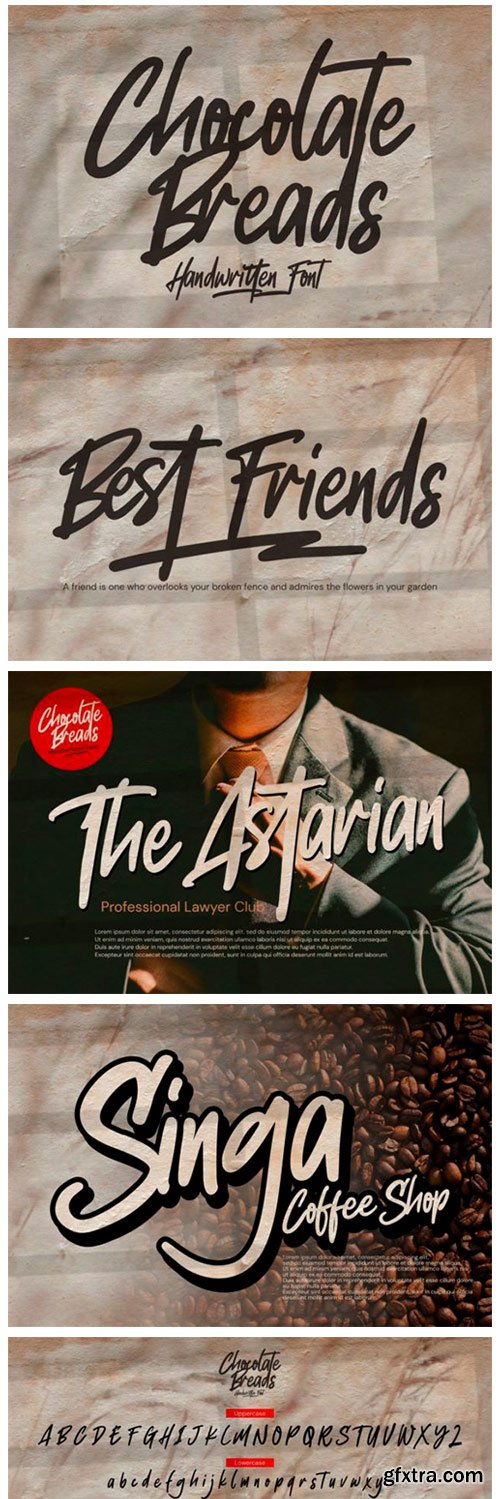
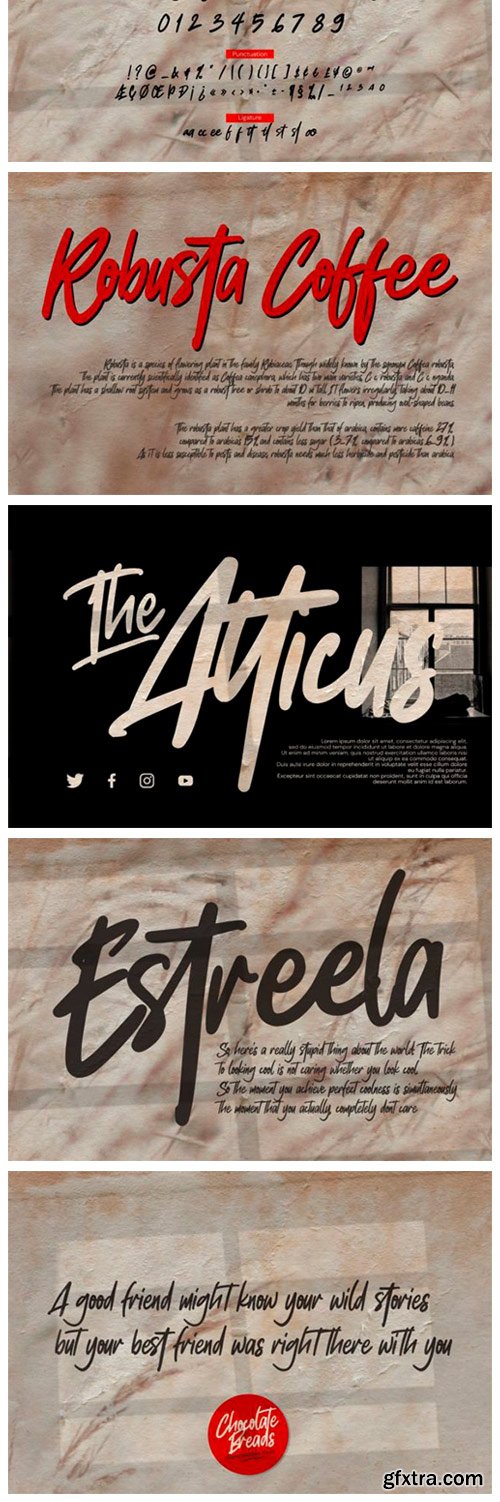
Chocolate Breads Font
Chocolate Breads is a lovely script font featuring charming, playful characters that seem to dance along the baseline. Add this font to your most creative ideas, and notice how it makes them stand out!
Saestwo Font
Saestwo is a cool, trendy and retro styled serif font. This font reads as strong, confident, and dynamic and can add tons of nostalgic character to your designs.
Jhenythan Cristian Font
Jhenythan Cristian is a thin lettered and graceful script font. Fall for its ravishing style and use it to create gorgeous wedding invitations, beautiful stationary art, eye-catching social media posts, and much more!
Optimistica Dreams Font
Optimistica Dreams is a thin lettered and graceful script font. Fall for its ravishing style and use it to create gorgeous wedding invitations, beautiful stationary art, eye-catching social media posts, and much more! Optimistica Dreams is PUA encoded which means you can access all glyphs and swashes with ease!
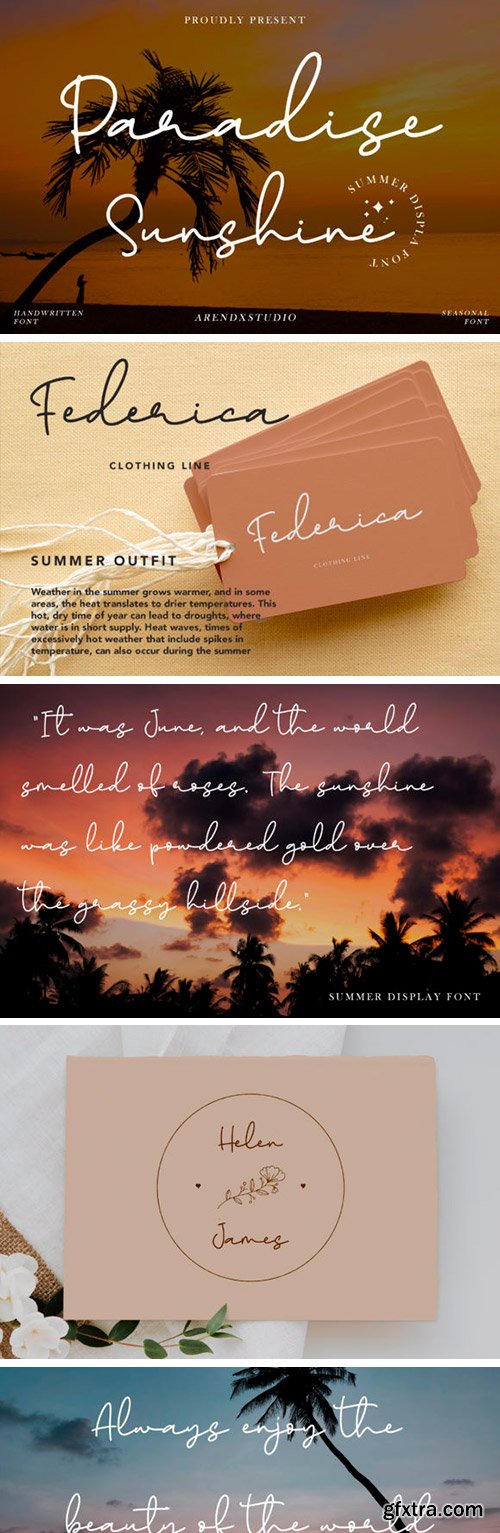
Paradise Sunshine Font
Paradise Sunshine is a sweet and delicate handwritten font. Dainty and joyful, this font will be ideal for writing wedding invitations, cards or any other design that may need a romantic, personalized touch!
Antara Font
Antara is a gorgeous and bold handwritten font, crafted to give your headlines and logotype projects a stylish touch. This font reads as strong, confident, and dynamic and can add tons of nostalgic character to your designs. Antara is PUA encoded which means you can access all of the glyphs and swashes with ease!
Handlettery Font
Handlettery is an elegant and dainty handwritten font that features sweet and delicate swashes. This original look will appeal to a wide range of crafty ideas, from letterheads and titles, to stationery.
Amster Font
Amster is a gorgeous and bold handwritten font, crafted to give your headlines and logotype projects a stylish touch. This font reads as strong, confident, and dynamic and can add tons of nostalgic character to your designs.